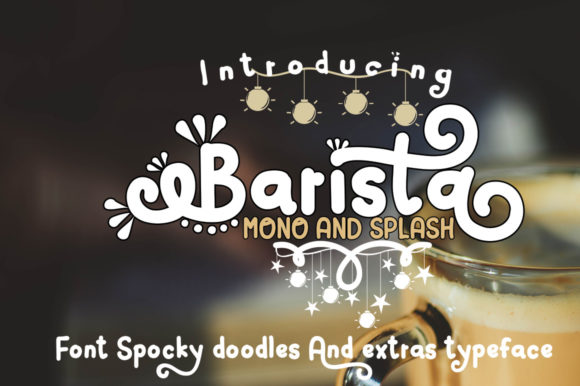
Step into the world of Barista Font, a delightful and whimsical display font crafted by the talented jehansyah251. This charming font family offers a unique blend of playfulness and sophistication, making it an ideal choice for adding a touch of fun to your designs.
With its bold letters and excellent readability, Barista Font ensures your messages are conveyed with clarity and impact. It's a font that dances on the page, bringing a smile to the faces of readers. Its distinct Christmas doodles infuse your projects with festive cheer, making them stand out from the ordinary.
Whether you're a savvy designer, a creative entrepreneur, or simply someone looking to add a joyful touch to their projects, Barista Font is the perfect choice. Unleash your imagination and let this font transport you to a world of enchanting designs. Download Barista Font today and embark on a journey of creative expression.
Key Points:
• Bold Letters: Barista Font features bold and impactful letters that ensure your messages are seen and remembered.
• Excellent Readability: Experience effortless readability with Barista Font, making your content easy to digest and understand.
• Playful Feel: Infuse your designs with a playful vibe using Barista Font's charming and whimsical style.
• Christmas Doodles: Add a festive touch to your projects with Barista Font's delightful Christmas doodles, perfect for spreading holiday cheer.
• Creative Expression: Unleash your creativity and let Barista Font guide you towards captivating designs that resonate with your audience.